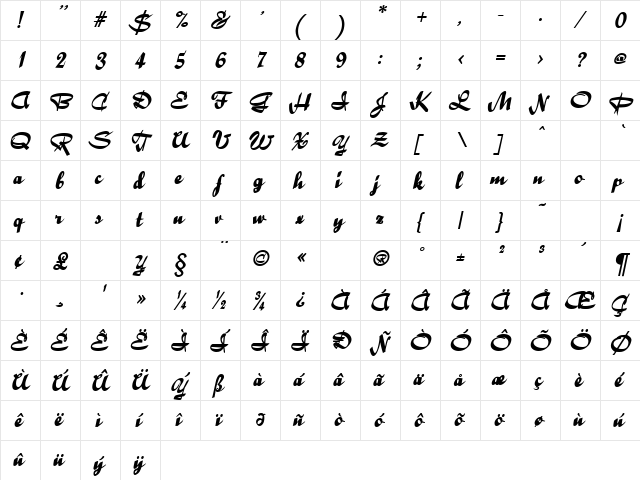
Ribbons BoldItalic
Design Context for Ribbons Typeface
Ribbons is a composed and adaptable typeface that performs quietly and consistently across a wide range of design contexts. The dynamic lean of this cut emphasises speed and emphasis in any layout. The heavy weight commands attention and anchors typographic hierarchies.
Pro Tip: Try Ribbons for annotation and caption copy alongside an upright companion — the contrast in angle creates a dynamic but ordered typographic system.